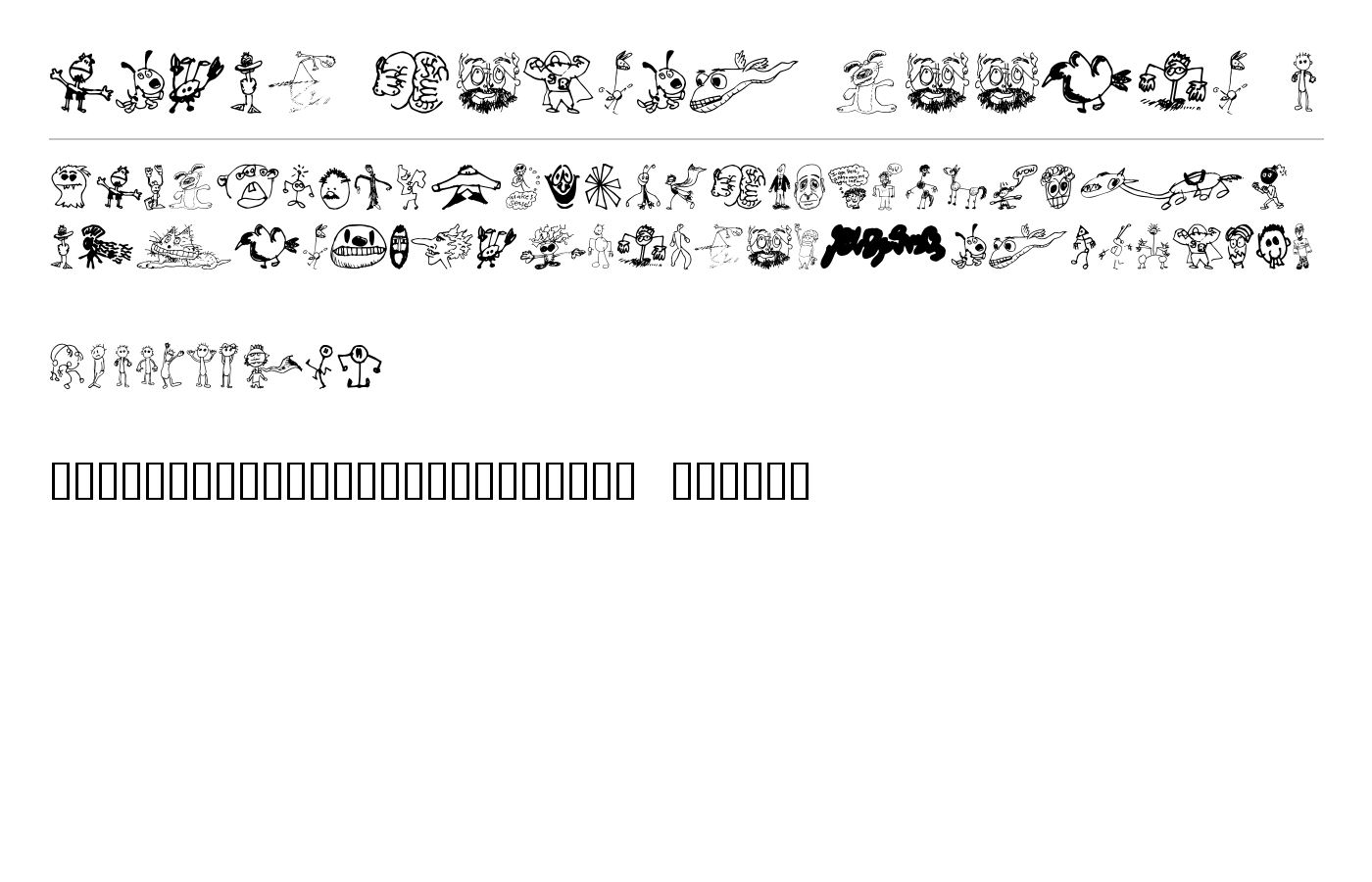
Brian Powers Doodle 2 is a whimsical and playful dingbat font featuring a collection of quirky, hand-drawn doodle characters and shapes. Its irregular, sketch-like style gives it a lively, informal personality perfect for creative projects, children’s designs, or any work needing a fun, artistic touch. This font excels in use cases like posters, greeting cards, and unique branding where a casual, imaginative vibe is desired.
Brian Powers Doodle 2 Font
About Brian Powers Doodle 2 Font